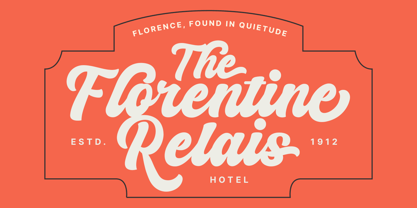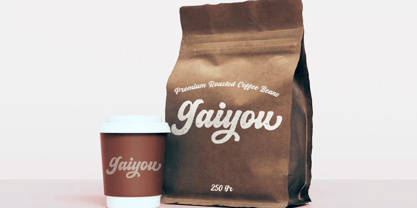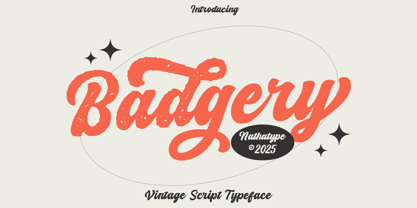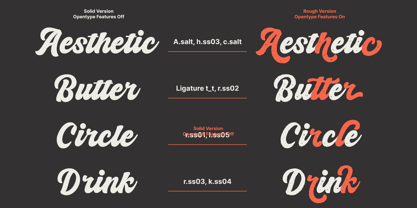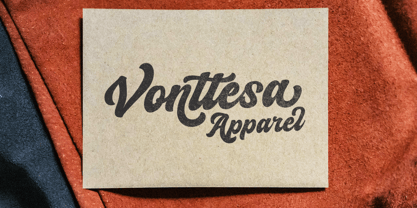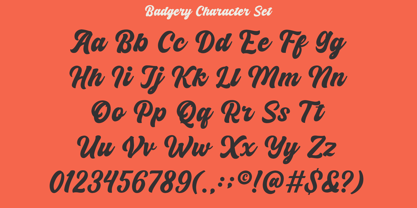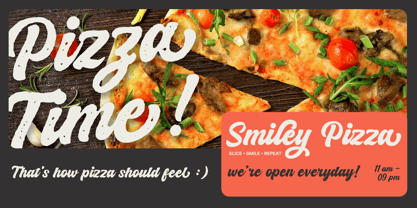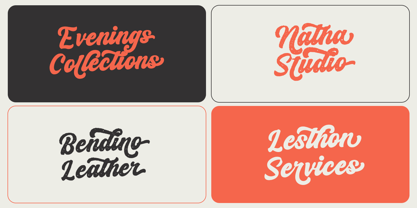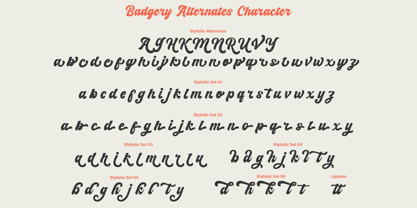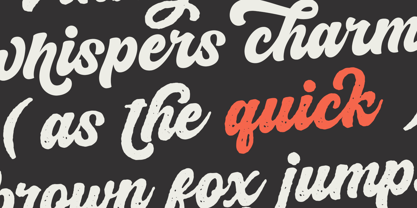
Badgery
by Nathatype
The Badgery Font Family was designed by Donis Miftahudin and published by Nathatype. Badgery contains 2 styles and family package options. More about this family
Badgery is a beautifully crafted vintage script font designed to bring timeless charm and bold personality. Inspired by traditional sign painting and mid-century lettering styles, Badgery features smooth, flowing strokes that connect seamlessly from one letter to the next. Its moderately thick weight ensures your designs stand out while still retaining the elegance and warmth typical of vintage script typography. To enhance its versatility, Badgery comes in two distinctive styles: Solid and Rough. In addition, enjoy the features here. Features: Alternates Ligatures Stylistic Sets Multilingual Supports PUA Encoded Numerals and Punctuations Badgery fits in logos, invitations, quotes, branding, posters, and many more designs. Find out more ways to use this font by taking a look at the font preview. Thanks for purchasing our fonts. Hopefully, you have a great time using our font. Feel free to contact us anytime for further information or when you have trouble with the font. Thanks a lot and happy designing.
Designers: Donis Miftahudin
Foundry: Nathatype